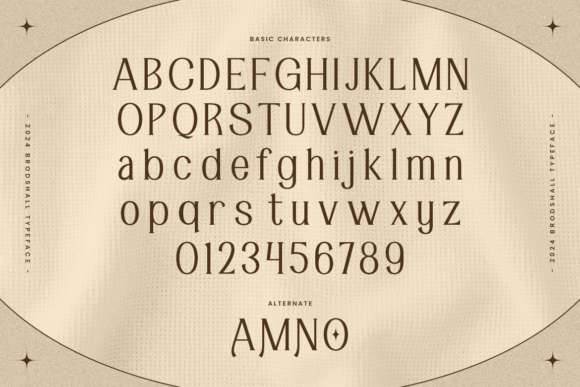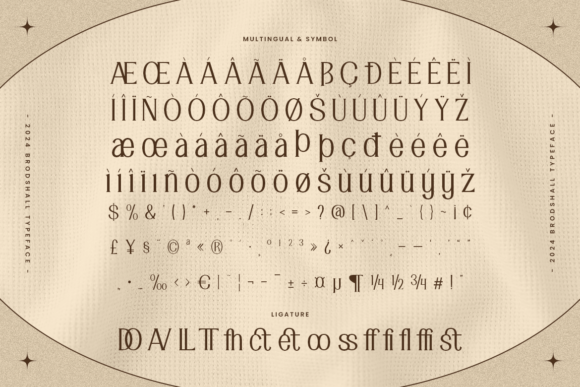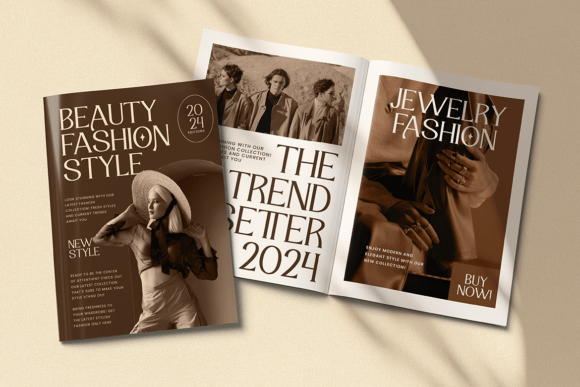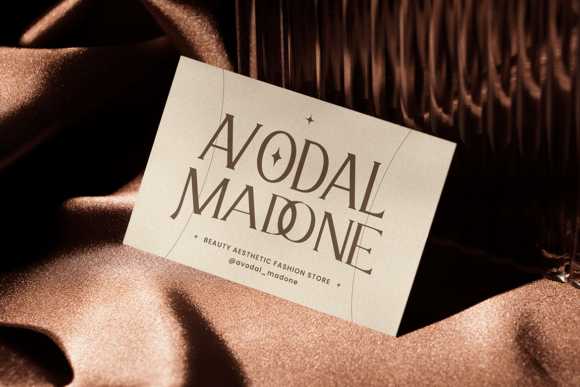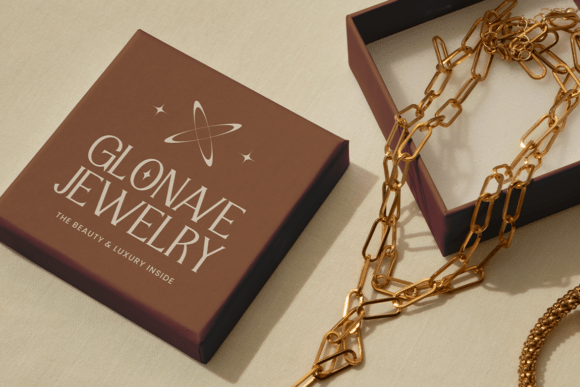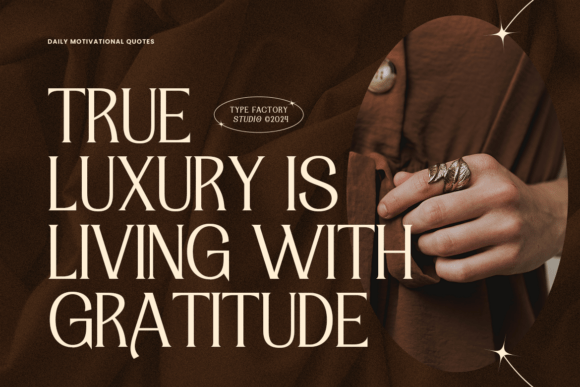
The Perfect Blend of Classic and Modern: Unveiling the Brodshall Font
Have you ever stared at a blank page, desperately searching for the perfect font to bring your creative vision to life? The blank page stares back, taunting you with its emptiness. But what if I told you that there’s a font that can bridge the gap between classic elegance and modern sophistication? Enter the Brodshall Font, a display serif typeface designed to make your designs stand out.
With its refined proportions and clear contrast between thick and thin strokes, the Brodshall Font is the perfect tool for designers looking to create visually striking compositions. Whether you’re working on a fashion branding project, designing a magazine cover, or crafting a promotional poster, this font is sure to make your designs pop.
What sets the Brodshall Font apart is its unique ability to balance classical serif influence with contemporary spacing, making it a valuable asset for any designer looking to create a lasting impression.
Brodshall Font Key Features
- Font Family: Brodshall is a serif font family.
- Unique Characteristics: Brodshall features a traditional, elegant design with a subtle flair, making it suitable for body text and titles in formal documents, books, and magazines.
Brodshall Font Review
I’ve had the chance to work with the Brodshall Font, and here’s my honest take.
- The Brodshall Font has a unique and modern aesthetic that can add a touch of sophistication to any design project.
- It’s highly legible, making it a great choice for body text and headlines.
- The font family is quite extensive, with a wide range of weights and styles to choose from.
- The Brodshall Font can feel a bit overused, as it’s been popular for a while and can be seen in many designs.
- Some users have reported issues with the font’s rendering on certain devices, which can lead to inconsistent display.
- The font may not be suitable for projects that require a more traditional or formal look.
Overall, I think the Brodshall Font is a solid choice for modern designs that need a touch of elegance. While it may have some limitations, its unique aesthetic and versatility make it a great option for designers looking for a fresh take on typography.
The Brodshall font is ideal for:
- Creating elegant and sophisticated titles and headings.
- Designing invitations, cards, and other paper crafts.
- Adding a touch of vintage charm to your designs.